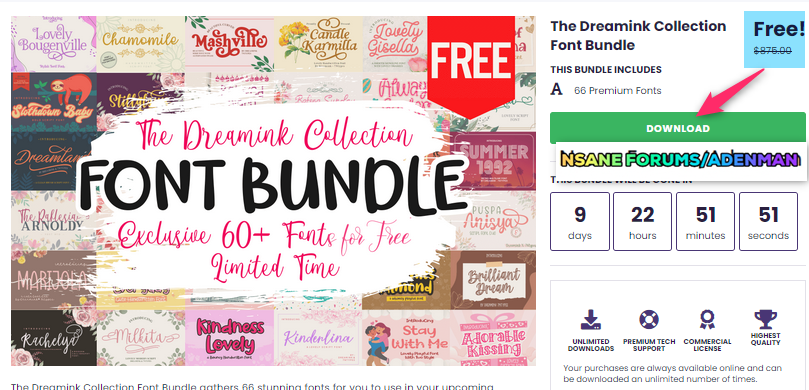
Adenman Posted April 4, 2022 Share Posted April 4, 2022 Your project design needs a touch of beautiful fonts. From script font to display font, get The Dreamink Collection Font Bundle with a lifetime commercial license for free! The Dreamink Collection Font Bundle gathers 66 stunning fonts for you to use in your upcoming projects. It includes popular script, handwritten, display and decorative fonts, perfect to use for Easter, Mother’s Day, spring, Father’s Day, summer, 4th of July and more! All fonts include a lifetime commercial license. This great bundle is normally worth $870 – for a limited time only, get it for FREE! Giveaway link : https://www.creativefabrica.com/product/the-dreamink-collection-font-bundle/ https://thesoftware.shop/the-dreamink-collection-font-bundle-sale/ Link to comment Share on other sites More sharing options...